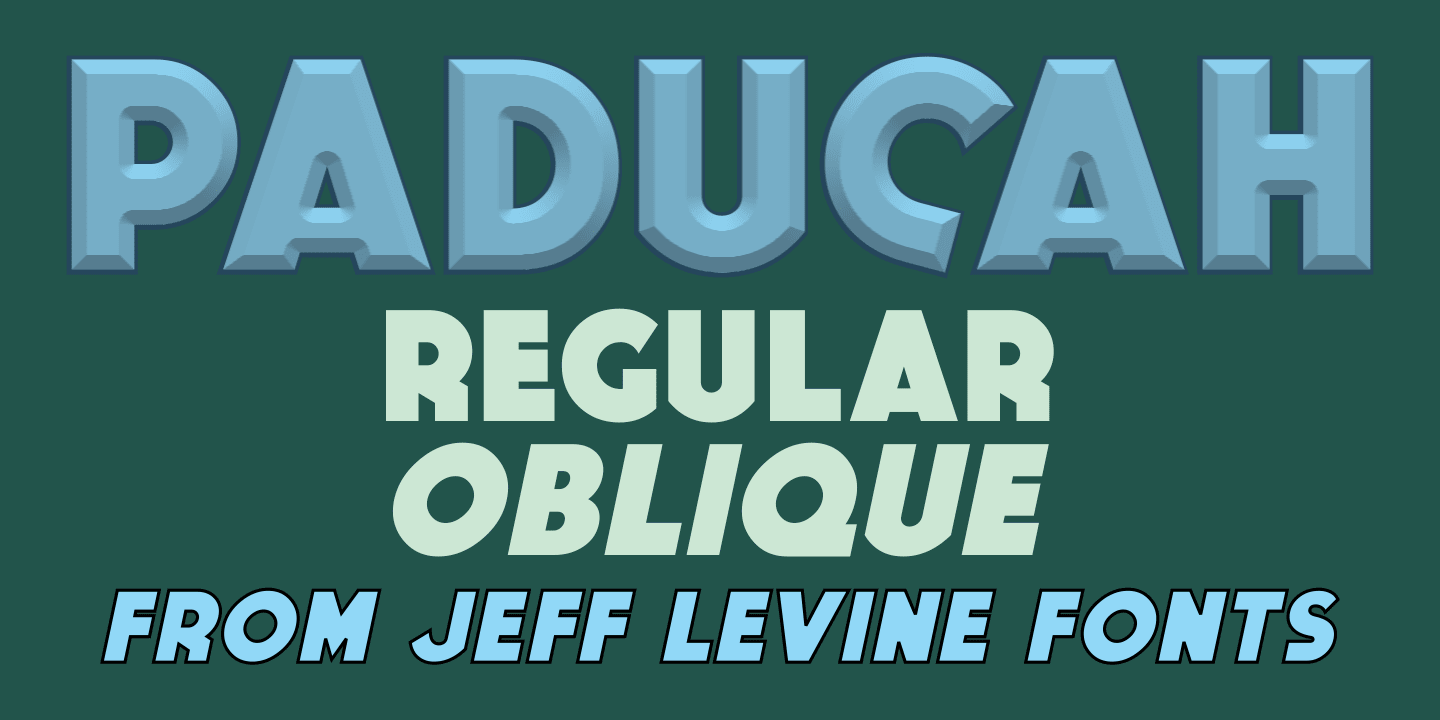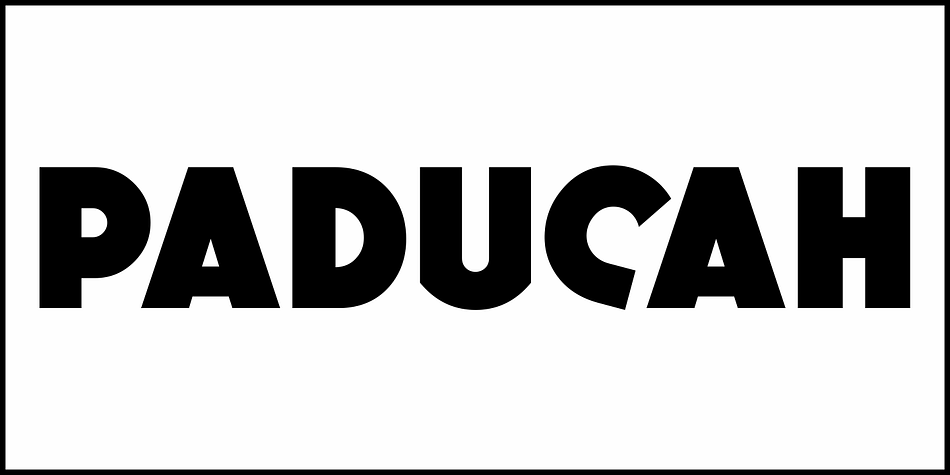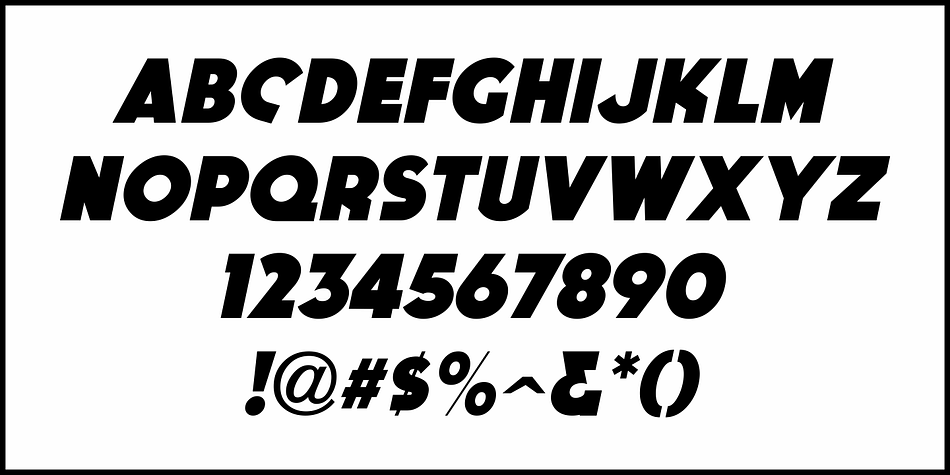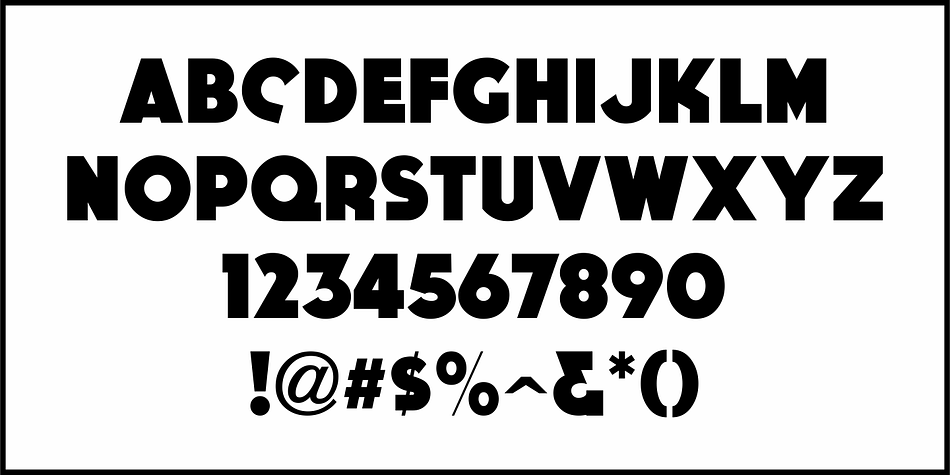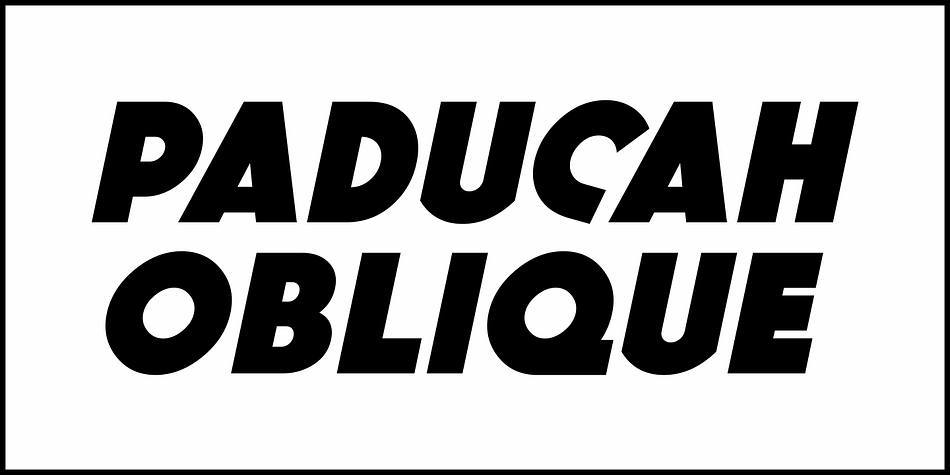
PADUCAH JNL
Designed by Jeff Levine, Paducah JNL is a sans serif font family. This typeface has two styles and was published by Jeff Levine Fonts.
The hand lettered screen credits for the 1940 film “The Proud Valley” feature a bold, hand lettered sans serif type design with strong Art Deco influences.
This is now available as Paducah JNL, which is available in both regular and oblique versions.